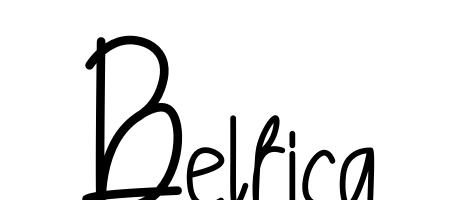
Belfica
Belfica is a handwritten script font. Its lowercase letters are delicate and flowy, with a slightly informal and playful feel. The uppercase 'B' is bold, providing a contrast to the rest of the word. It evokes a sense of elegance and personal touch, suitable for invitations or branding that needs a touch of whimsy.